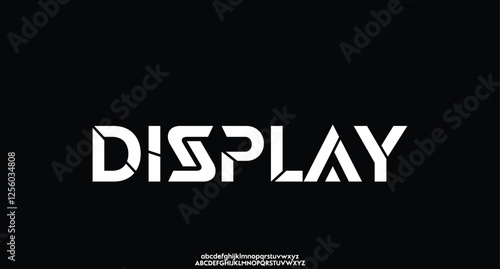
Display, Minimal modern logo alphabet font. Typography abstract minimalist sans serif technology, electronic, digital, music, movie, creative logos fonts. vector illustration